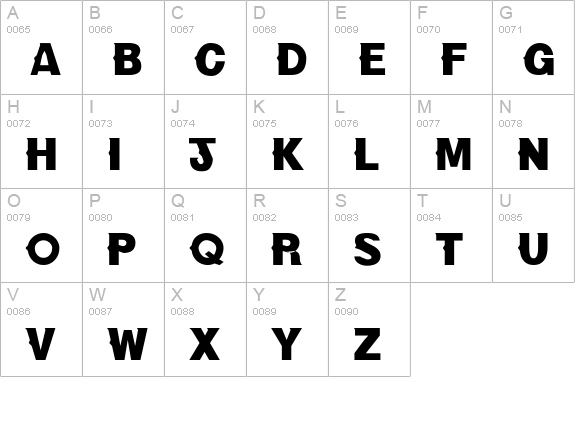
NewBold Font Details
Introducing NewBold font, a modern and stylish typeface that exudes confidence and sophistication. With its bold and clean lines, NewBold is perfect for creating eye-catching designs that demand attention. This versatile font is suitable for a wide range of projects, from logos and branding to posters and packaging. What sets NewBold apart is not only its striking aesthetics but also its versatility. Whether you are looking to make a bold statement or convey a sense of elegance, this font has you covered. Its sleek and contemporary design will add a touch of sophistication to any project. Best of all, NewBold is available for free download at FontsMarket.com. So why wait? Elevate your designs with this stunning font today and make a lasting impression.